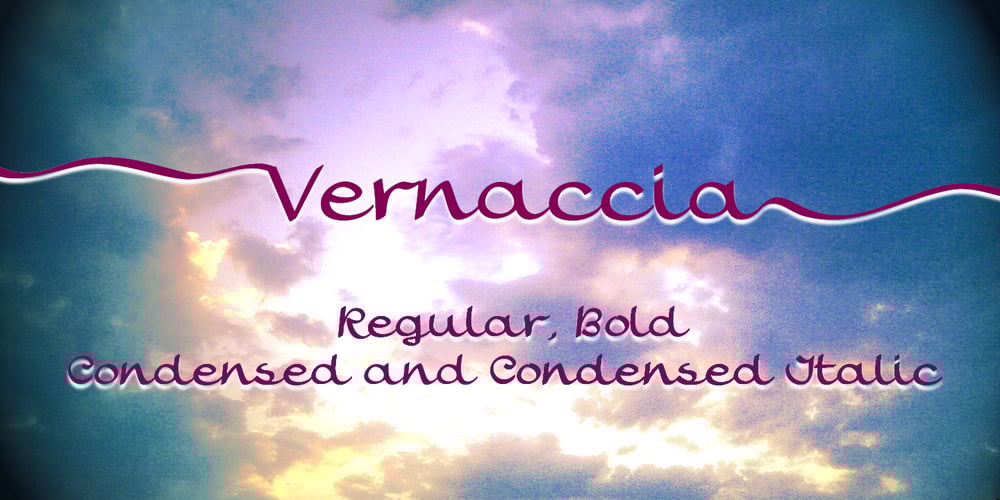
Vernaccia
Vernaccia font
Vernaccia Font Family was designed by Carine de Wandeleer and published by Eurotypo. Vernaccia contains 4 styles and family package options. Last year I went to visit a friend in Tuscany. One day he took me to meet his neighbor, a nice old man; Mr. Giulio. After giving us a tour of his small vineyard, he insisted us to try his production: a delicious Vernaccia! When his wife left the bottle containing the gold liquid on the table, I fell in love with the label: it was handwritten by herself, as if to highlight the “homemade” feature. As a tribute to this beautiful and hardworking couple, I asked permission to be inspired to make a typeface … and here goes! The family Font Vernaccia… Vernaccia is a type family of four fonts: Regular, Bold, Condensed and Condensed Italic. Is a modern and casual calligraphy family font. As an exclusively Open Type release, with 759 glyphs and 45 ornaments, it has several special alternatives for all letters with lots of possibility and an infinity of combinations. Most of the ornaments can be used alone, but really were especially designed to combine with the different glyphs. There are plenty of options to allow you to create something unique and special: standard and discretionary ligatures, several swashes and stylistics alternates for each letter, catchwords, tails that can be added to the beginning or end of each letter, ornaments, and much more. These lovely fonts have already an extended character set to support Western European languages. Vernaccia was made to make your project more beautiful and attractive! Have fun with it!